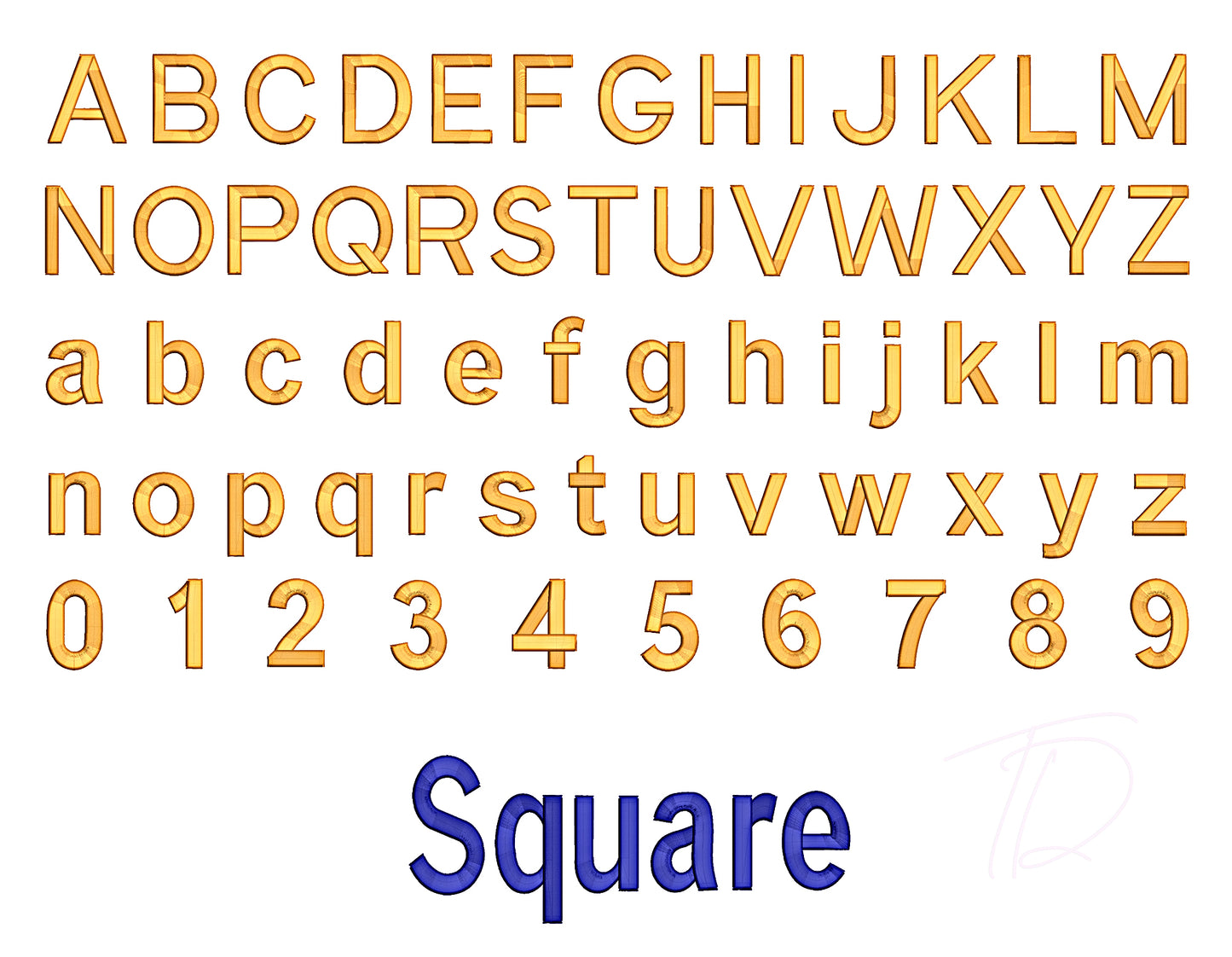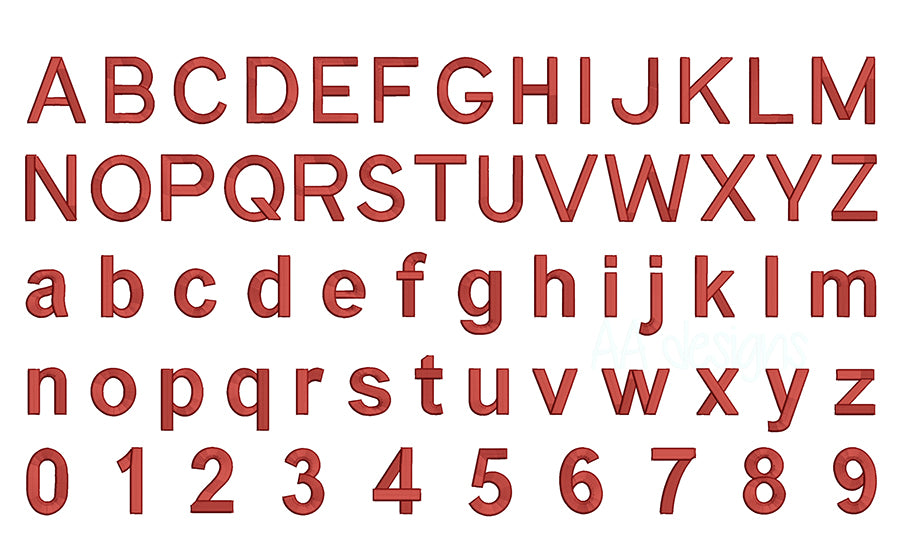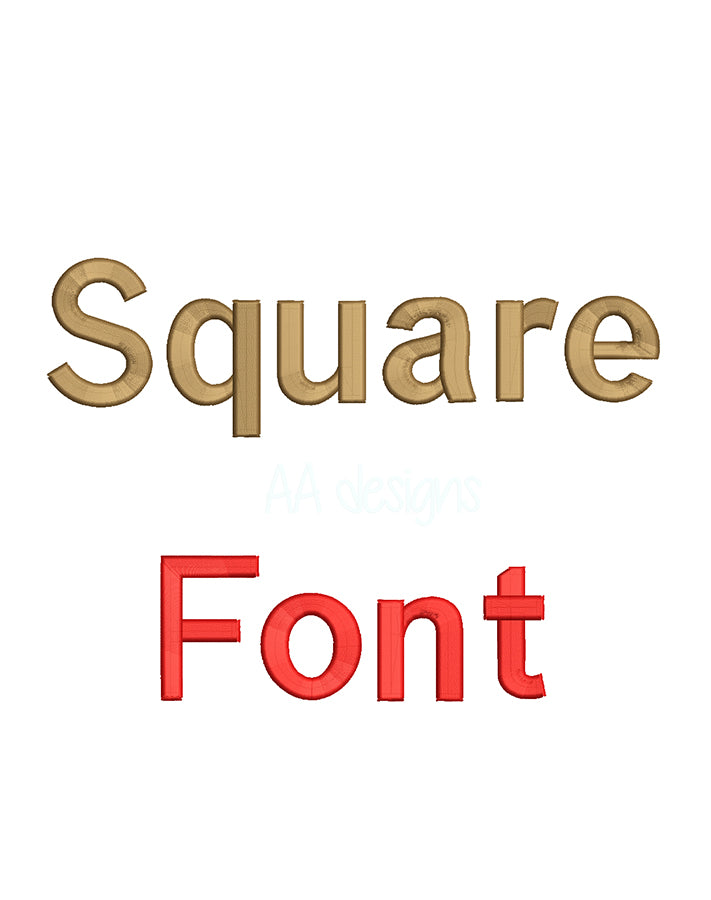
Block 3D font. Square 3D puff embroidery digital font. Block Machine embroidery in 3D puff foam. BX format
Square 3D puff embroidery digital font
This font comes with letters in 3 sizes, A-Z, a-z, 0-9